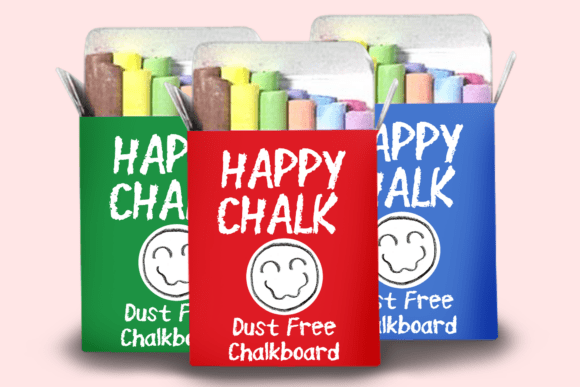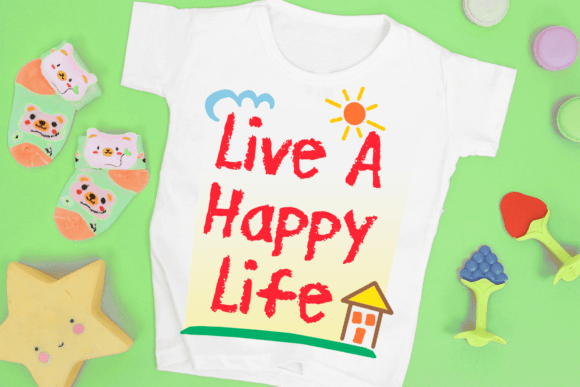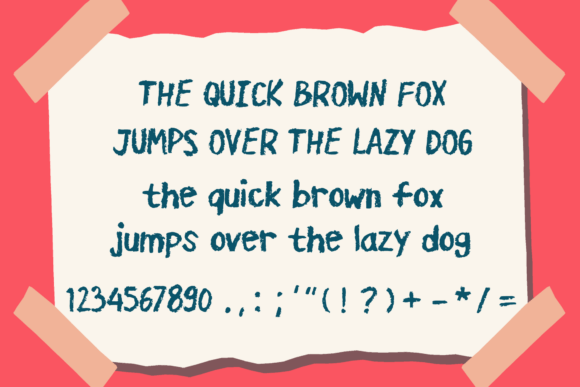
Get Ready to Unleash Your Creativity with Charcoal Crayon Font
Do you remember the joy of holding a crayon and creating something entirely new and unique? The feeling of bringing a blank page to life with vibrant colors and playful scribbles? That’s the magic of the Charcoal Crayon Font, a fun and playful handwritten font designed to bring a smile to your face and elevate your designs to the next level.
Whether you’re a seasoned designer or just starting out, the Charcoal Crayon Font is the perfect addition to your toolkit. Its versatility and charm make it suitable for a wide range of design projects, from stickers and t-shirt designs to logo designs and magazine covers. This font is a game-changer for designers looking to add a touch of whimsy and personality to their work.
Key Features of Charcoal Crayon Font
- Unique Hand-Drawn Design: Charcoal Crayon Font features a distinctive hand-drawn style with subtle imperfections, giving it a personal and artistic feel.
- Special Characters: Includes a range of special characters, including accents, punctuation, and symbols, to enhance its usability in various languages.
Charcoal Crayon Font Review
Overall, I think the Charcoal Crayon Font is a fun and creative option for designers looking to add some personality to their projects. ✨ Here are some things that work well:
- Expressive and Whimsical Feel – This font has a unique, hand-drawn quality that’s perfect for adding a touch of playfulness to designs.
- Good for Logos and Branding – The Charcoal Crayon Font’s bold, distinctive lines make it a great choice for creating memorable logos and brand identities.
- Wide Character Set – The font includes a wide range of characters, including accents and punctuation marks, making it a versatile option for designers.
- May Not be Suitable for Body Text – The font’s irregularities can make it difficult to read in large blocks of text.
- Limited Font Sizes and Styles – The Charcoal Crayon Font is available in only a few font sizes and styles, which may limit its versatility.
In terms of overall impression, I think the Charcoal Crayon Font is a great option for designers who want to add a touch of personality and whimsy to their projects. While it may not be suitable for all types of designs, it’s a great choice for logos, branding, and other projects where a unique, expressive feel is desired.
For the most authentic results, use the Charcoal Crayon font in conjunction with other creative elements, such as watercolor textures or hand-drawn illustrations. This font is particularly well-suited for children’s books, educational materials, or any design that requires a playful and whimsical touch.